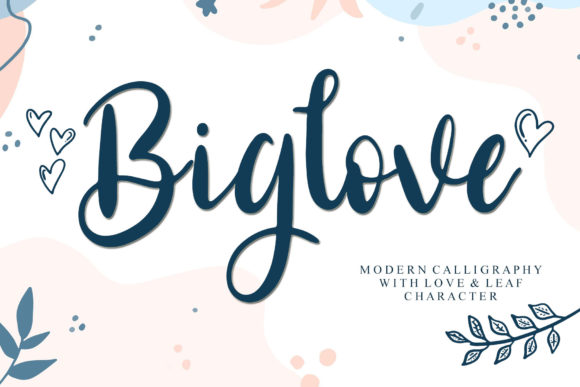
Introducing Biglove Font: A Dazzling Script Font for Your Creative Projects
In the world of typography, fonts play a crucial role in conveying the tone and personality of a brand or creative project. With the numerous font options available, it can be overwhelming to choose the perfect one that stands out from the rest. However, if you’re looking for a font that exudes elegance, sophistication, and creativity, look no further than Biglove Font. In this article, we’ll delve into the features and benefits of Biglove Font, and explore why it’s a must-have for designers, artists, and writers.
What is Biglove Font?
Biglove Font is a beautifully crafted script font that boasts a high level of detail and intricacy. Its elegant and flowing lines make it perfect for a variety of creative projects, including branding, advertising, packaging, and more. Whether you’re looking to add a touch of sophistication to your design or create a bold statement, Biglove Font is an excellent choice.
Key Features of Biglove Font
- Highly Detailed: Biglove Font is meticulously crafted with attention to detail, ensuring that every letterform and swash is of the highest quality.
- Script Font: As a script font, Biglove Font offers a unique and elegant aesthetic that’s perfect for creating sophisticated and eye-catching designs.
- Neatly Crafted: The font is carefully designed to ensure that every letterform flows smoothly and harmoniously, making it a joy to use.
Benefits of Using Biglove Font
So, why choose Biglove Font for your creative projects? Here are just a few benefits of using this stunning script font:
- Adds Elegance and Sophistication: Biglove Font brings a level of elegance and sophistication to your designs, making it perfect for high-end branding, luxury packaging, and more.
- Enhances Creativity: With its intricate details and swashes, Biglove Font offers endless creative possibilities, allowing you to experiment and push the boundaries of typography.
- Versatile: Biglove Font can be used for a wide range of creative projects, from advertising and packaging to stationery and digital media.
Who Can Benefit from Biglove Font?
Biglove Font is an excellent choice for a variety of creatives, including:
- Graphic Designers: Whether you’re working on branding, advertising, or packaging, Biglove Font is a great addition to your font library.
- Artists and Illustrators: Biglove Font can add an extra layer of creativity and elegance to your artwork.
- writers and Publishers: If you’re looking for a font that adds a touch of sophistication to your written work, Biglove Font is an excellent choice.
- Marketing and Advertising Agencies: Biglove Font can help you create eye-catching and memorable campaigns that stand out from the competition.
In conclusion, Biglove Font is a dazzling script font that offers a unique combination of elegance, sophistication, and creativity. With its PUA encoded feature, intricate details, and versatility, it’s an excellent choice for a wide range of creative projects. Whether you’re a designer, artist, writer, or marketer, Biglove Font is a must-have font that can help you take your work to the next level.
- Is Biglove Font easy to read? Yes, Biglove Font is designed to be elegant and legible, making it easy to read in a variety of contexts.